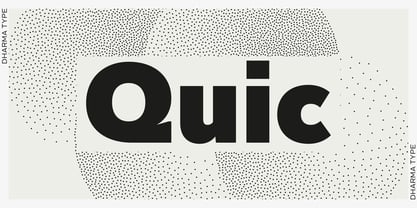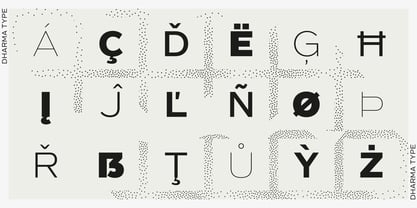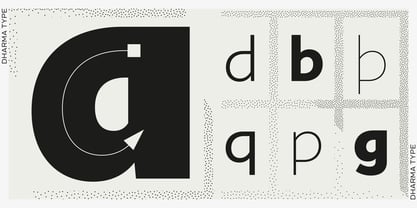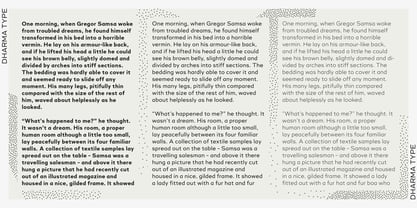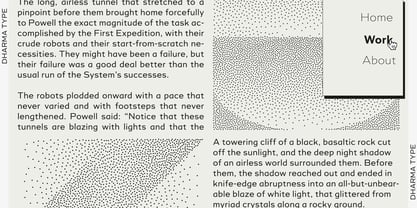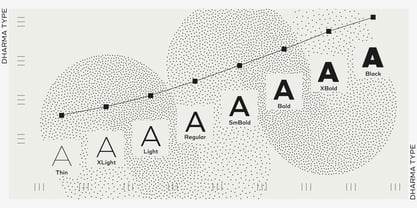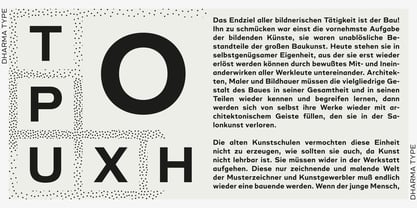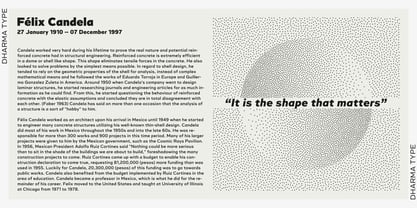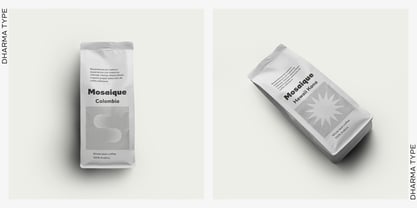
Quic
by Dharma Type
This typeface is primarily constructed on a foundation of simple geometric forms. What distinctly differentiates it from other typefaces, however, is the treatment of characters such as a, b, and g, which draw inspiration from rapid, fluid strokes often seen in cursive handwriting and expressive brushwork.
This unique approach lends the typeface a sense of lightness, clarity, and understated sophistication.
While typefaces with similar qualities have emerged periodically since the 2000s, few exhibit the same level of refinement or the uncompromising pursuit of a singular design vision as this one.
The typeface family comprises eight weights, each accompanied by a matching italic, and offers broad language support across Latin-based scripts.
About Dharma Type
Dharma Type is a type design project launched in 2005 by Ryoichi Tsunekawa, aimed at providing exclusive fonts for designers around the world.The design styles span a wide spectrum—from retro and classic to experimental and futuristic, from formal to informal—reflecting the project's mission to fill niche demands in the design landscape.To date, Dharma Type has released around 100 Latin typefaces, including the widely popular Bebas Neue, an open-source font. Many of these typefaces have been featured in publications and used across a variety of media—ranging from movie titles (such as La La Land) to brand logos and posters.